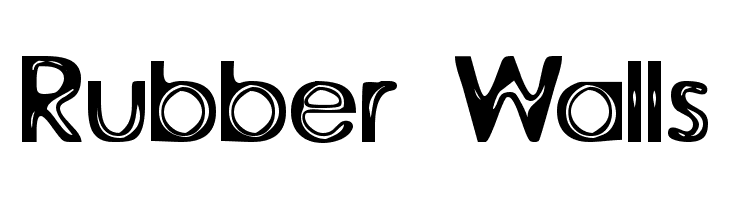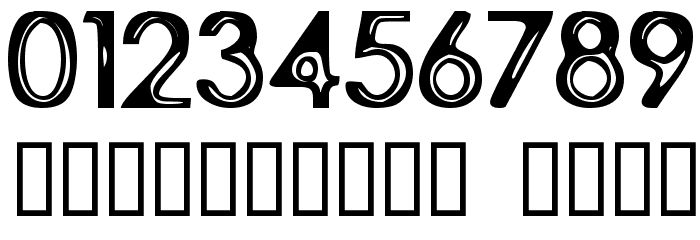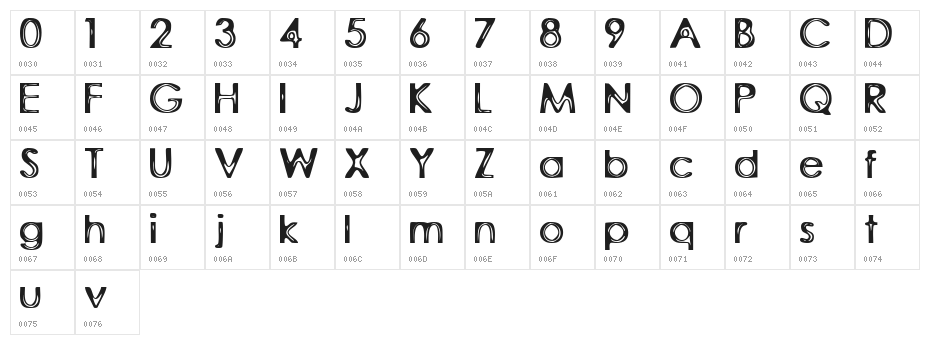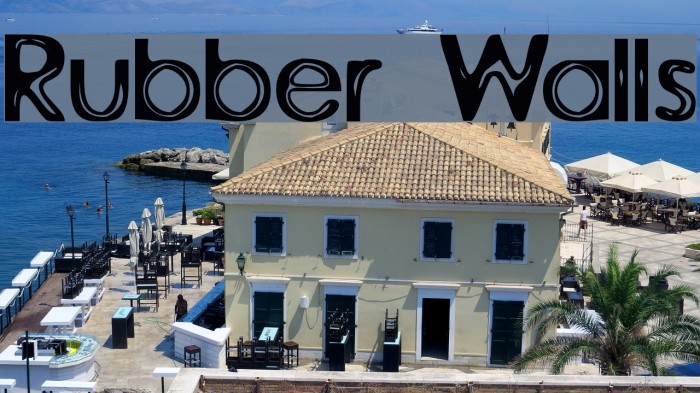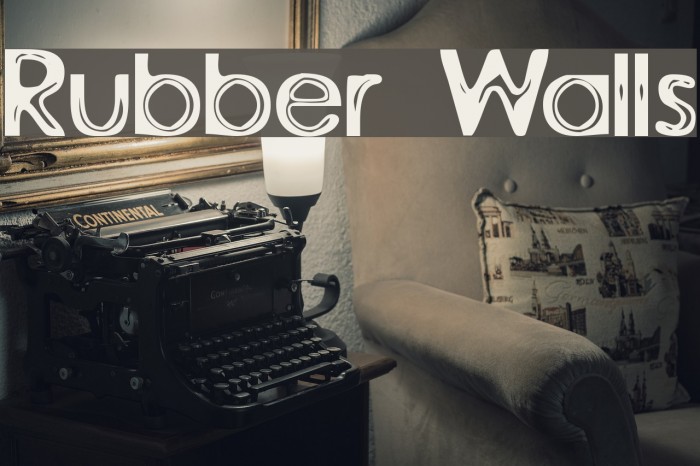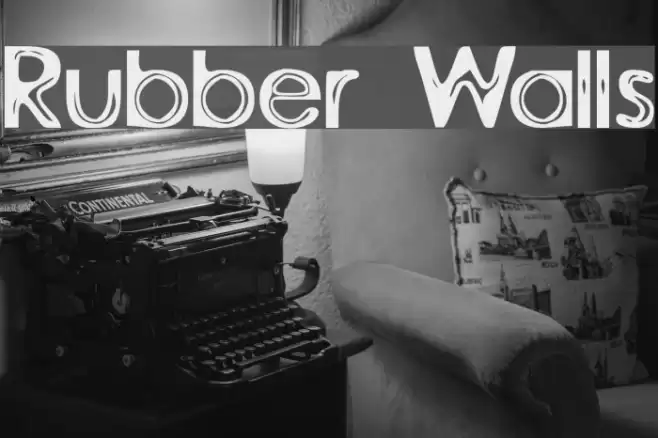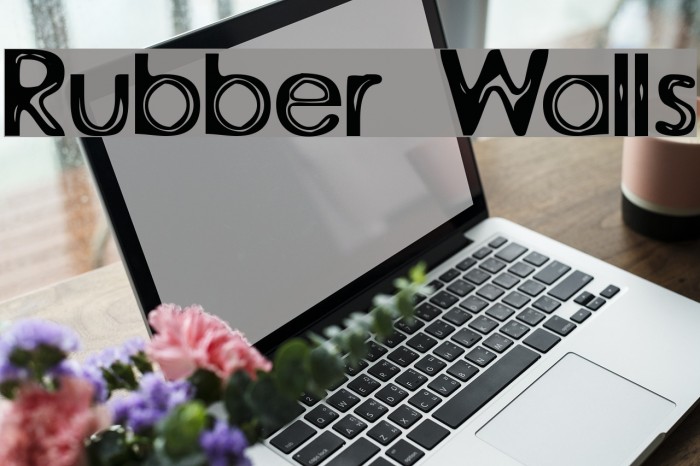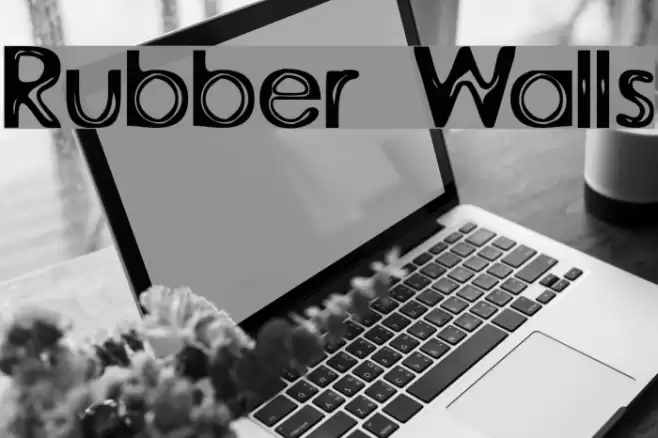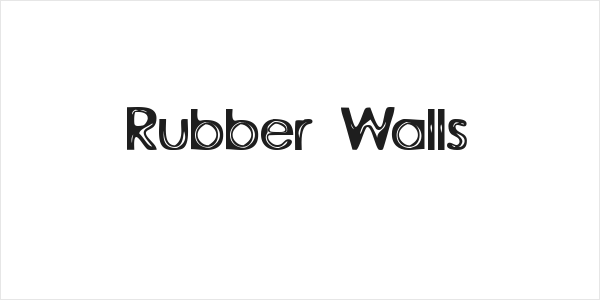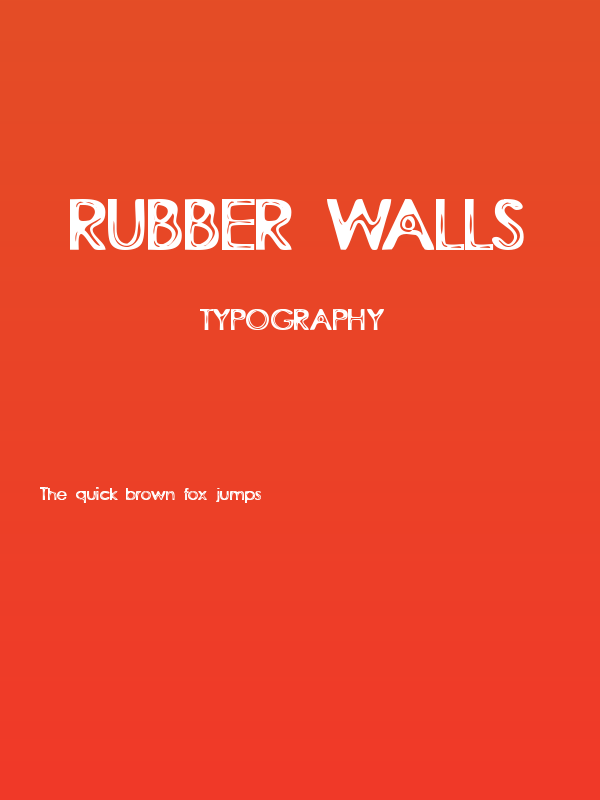
Rubber Walls Font
Rubber Walls Description
This font features a playful and dynamic style, characterized by its bold and irregular shapes. The letters have a unique, almost cartoonish appearance with varying stroke thicknesses that create a sense of movement and energy. The uppercase and lowercase letters maintain a consistent design ethos, with rounded edges and a slightly whimsical flair. Numbers and special characters follow the same aesthetic, ensuring a cohesive look across all text elements. The font's distinctiveness makes it stand out, offering a creative and unconventional option for various design projects.
| Proposed Projects | Ideal for children's books, playful branding, creative posters, and eye-catching headlines. |